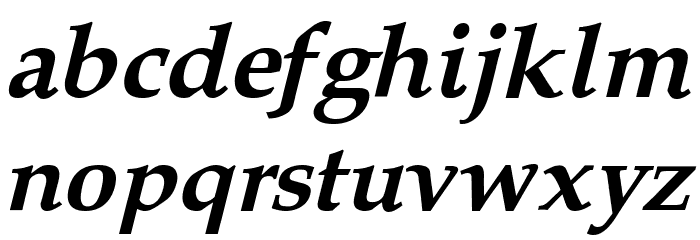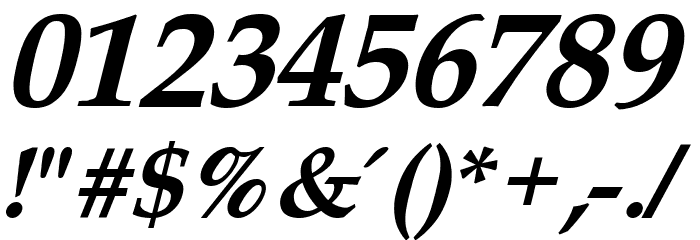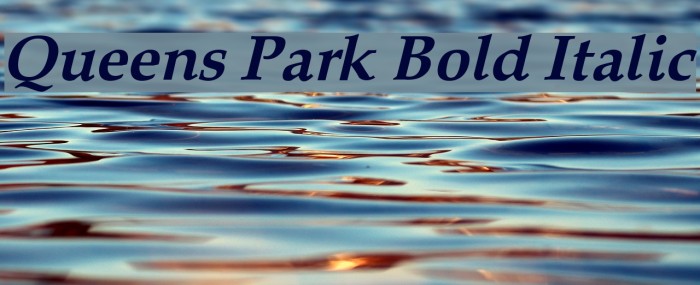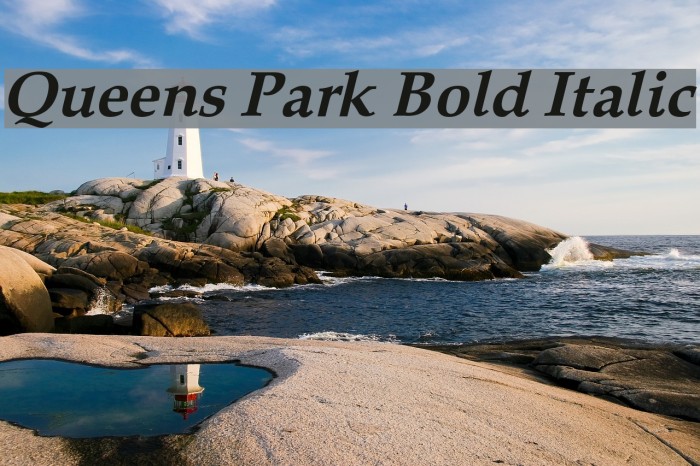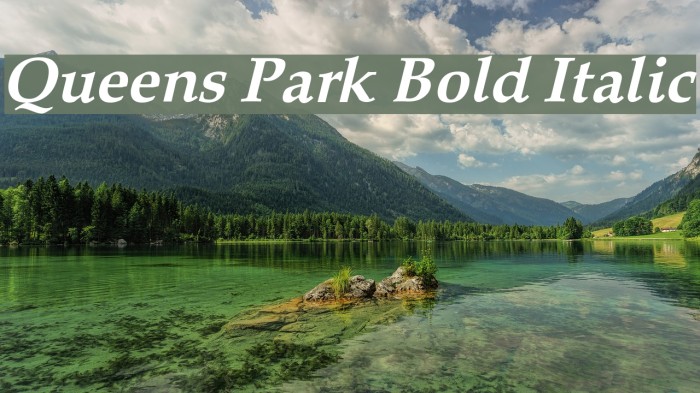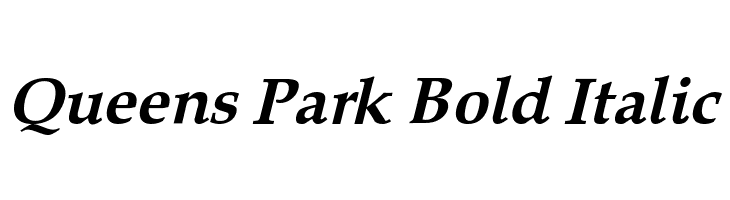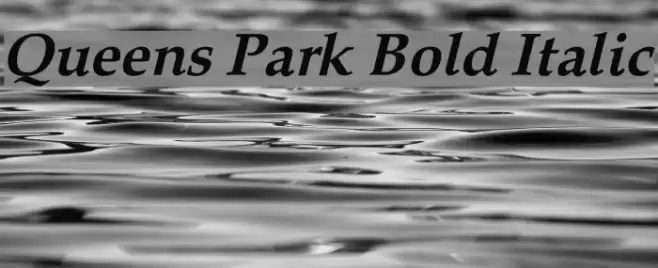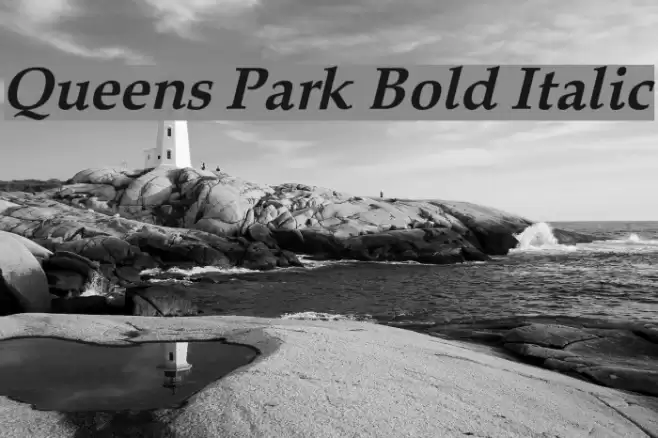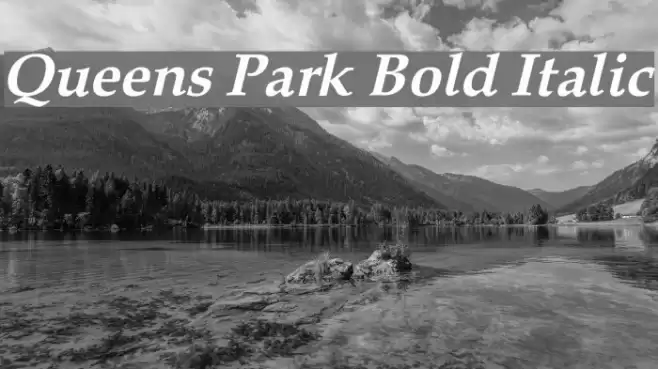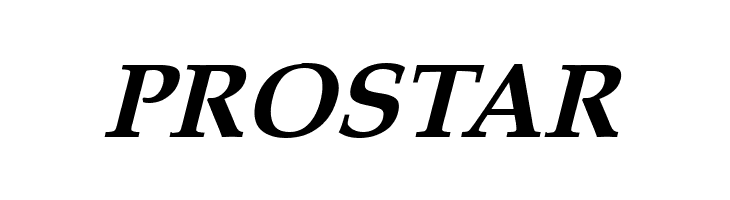
Queens Park Bold Italic Font
This font exhibits a classic serif style with a bold and italicized appearance, giving it a strong and elegant presence. The serifs are pronounced, adding a touch of sophistication and tradition. The italic slant enhances the dynamic feel, making it suitable for impactful text. The characters are well-proportioned, with a moderate contrast between thick and thin strokes, which ensures readability while maintaining a stylish look. The numerals and special characters are designed to match the overall aesthetic, providing a cohesive visual experience.
A bold, italic serif font with a classic and elegant style.
- Proposed Projects: Ideal for editorial design, book covers, formal invitations, and branding that requires a touch of elegance and tradition.
- Overall Style: Classic
- Use Case: Headlines, Logos, Editorial design